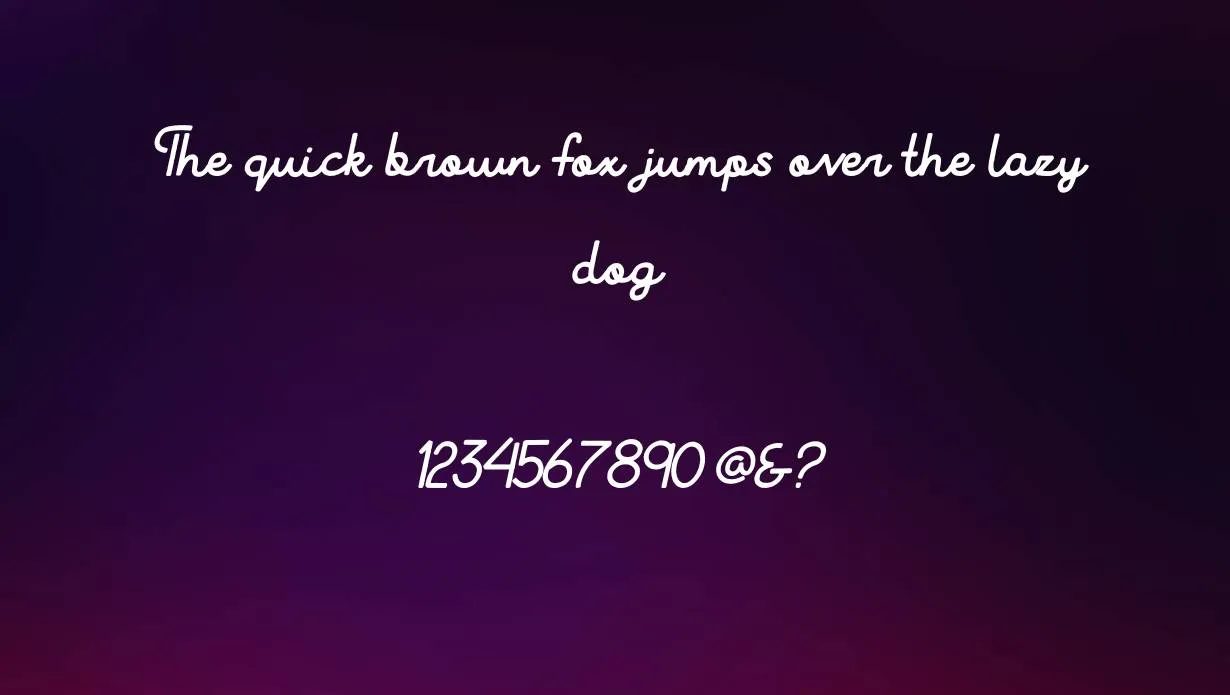
The Fraulein Revival font radiates a vintage and nostalgic vibe with its classic script. It’s commonly employed in retro-themed designs, branding, or projects aiming to evoke a sense of old-world charm.